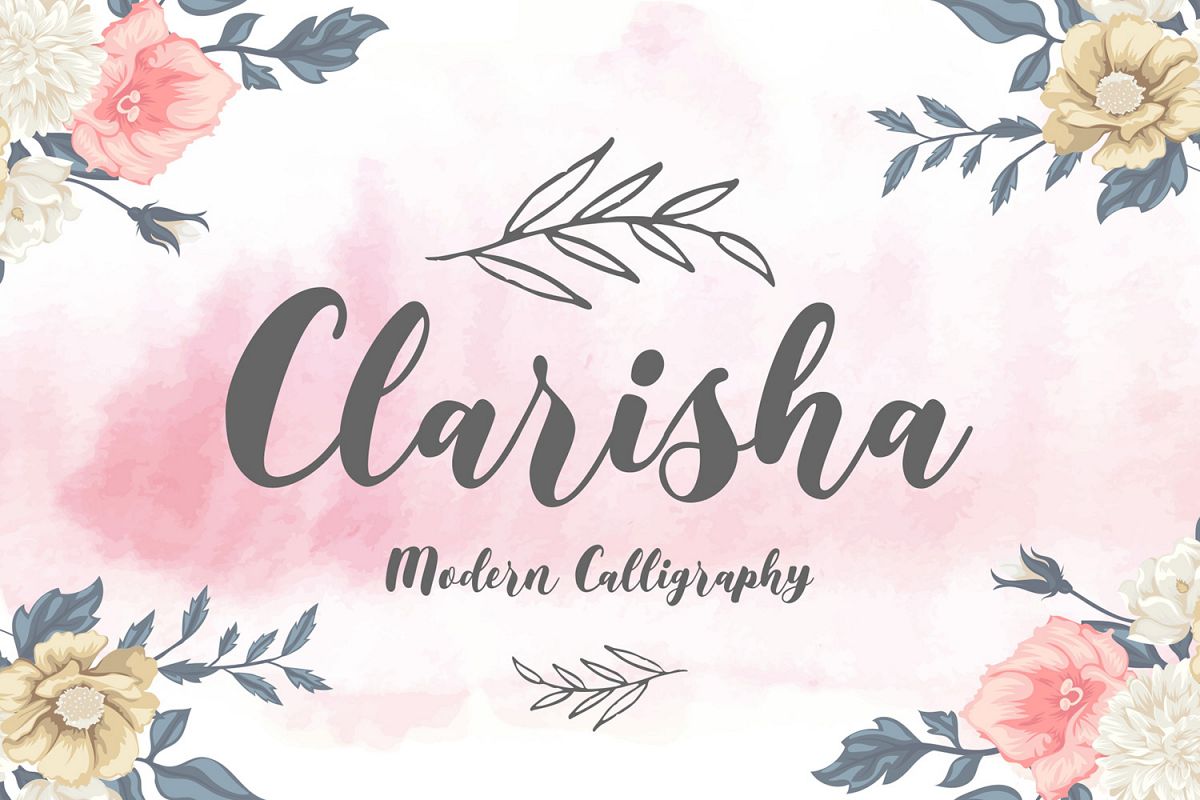
Clarisha Font Duo
Clarisha-Sans
Clarisha-Script
Clarisha-Ornaments
Clarisha is modern calligraphy font family. This typeface has script paired with sans and ornament font. It comes with stylistic alternates for all uppercase and lowercase letters, stylistic sets, initial and terminal forms and standard ligatures to add a natural and casual impression to your design. Works perfectly for logotype, invitation, packaging, label, book cover etc